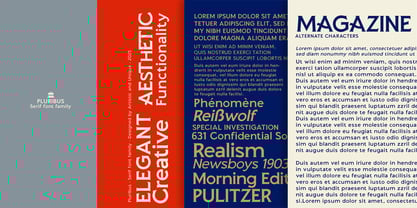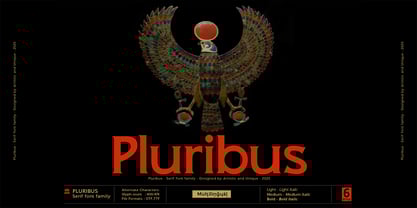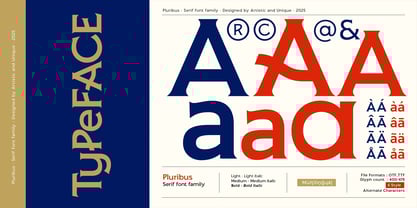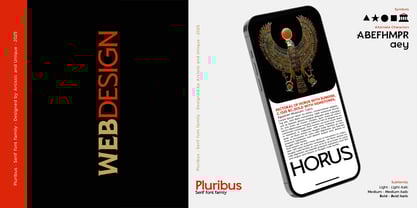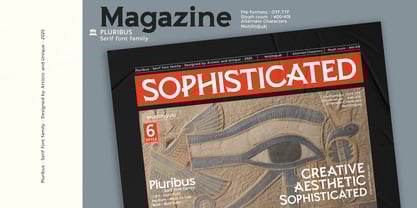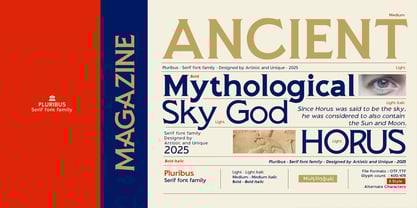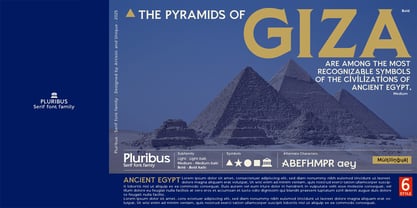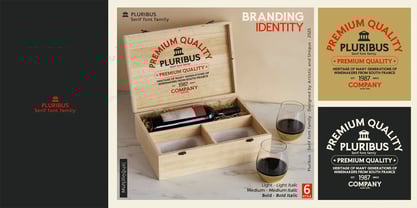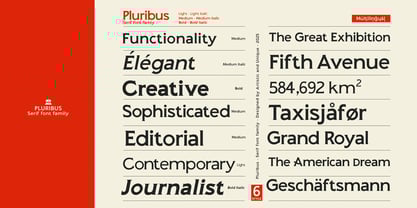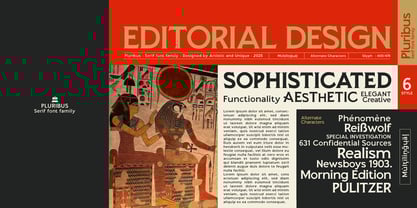
Pluribus
by Artisticandunique
The Pluribus Font Family was designed by Osman Taner Kucukgenc and published by Artisticandunique. Pluribus contains 6 styles and family package options.
Pluribus - Serif font family - 6 Style - Multilingual support. Pluribus is ideal for creating eye-catching branding materials while giving your projects a vintage-modern look. A versatile serif font family, Pluribus offers a refined solution for designers looking to enhance their visual toolsets. With its refreshed and enhanced functionality, Pluribus ensures seamless integration into both digital and print projects. This font features six different styles, offering elegance with alternative characters and a modernized, classic -modern serif look with subtle nuances, providing flexibility for a variety of creative work. Multilingual support enhances its global adaptability, while lighter tones add a sophisticated touch and darker tones highlight headings. Features: Multilingual support, 6 different styles, Style alternatives, 478 rich glyph options, Ideal for branding and editorial design, Suitable for web and logo design, Includes additional symbols. Whether designing books, magazines, newspapers, packaging, editorial, headings, websites, or logos, the Pluribus font family offers a harmonious blend of modern and classic aesthetics. Respecting traditional design principles while also meeting contemporary needs, this product is a versatile option for any design project. Enjoy.
Designers: Osman Taner Kucukgenc
Publisher: Artisticandunique
Foundry: Artisticandunique
Design Owner: Artisticandunique